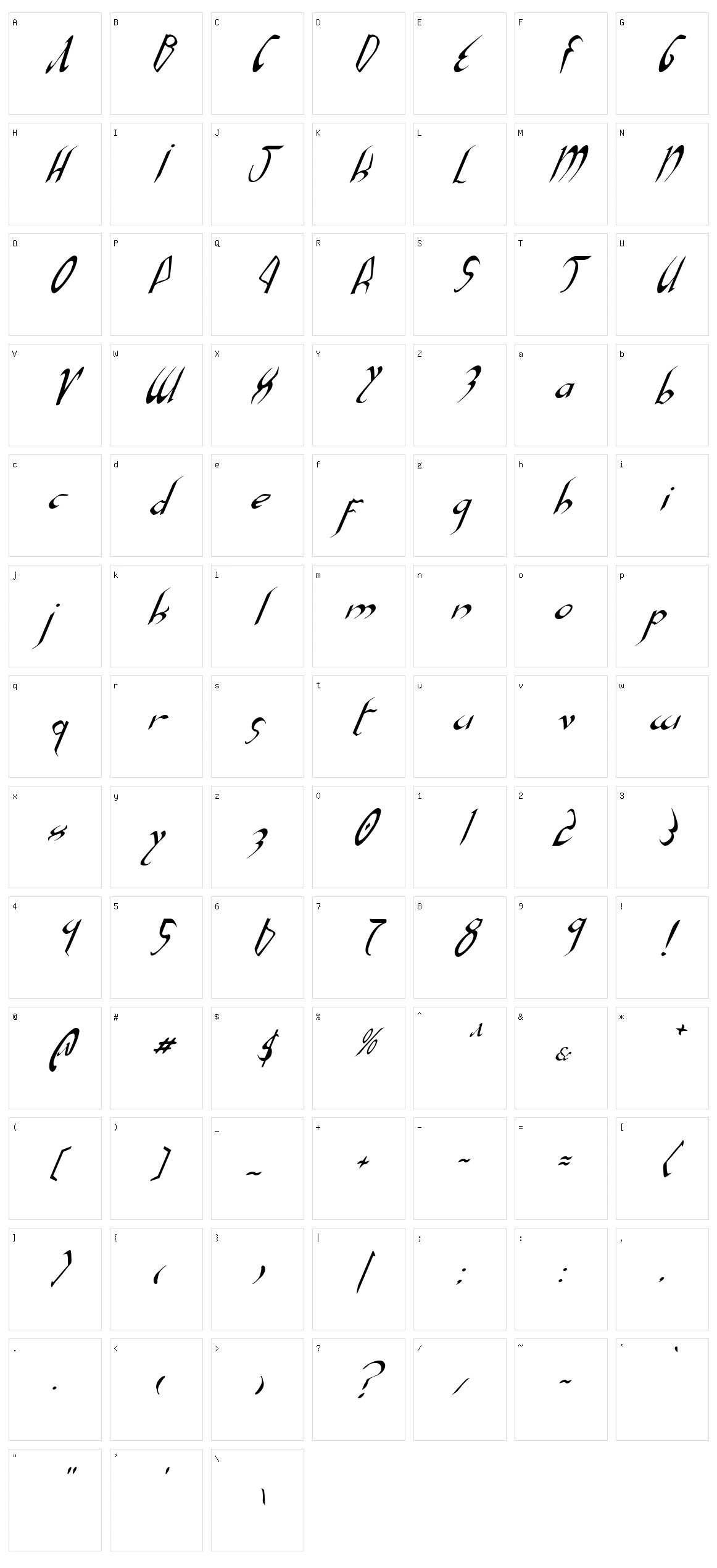
The free font Xaphan is carefully designed by Iconian Fonts, showcasing a thoughtful balance of creativity and usability and belongs to the Gothic font family. When you download the ZIP file, it contains only 353.88 KB of font files, making it lightweight and quick to download. Please review the license details below to understand permitted usage and distribution rights. If license information is not available, we recommend using this font for personal projects only or contacting the author directly for commercial usage permissions.